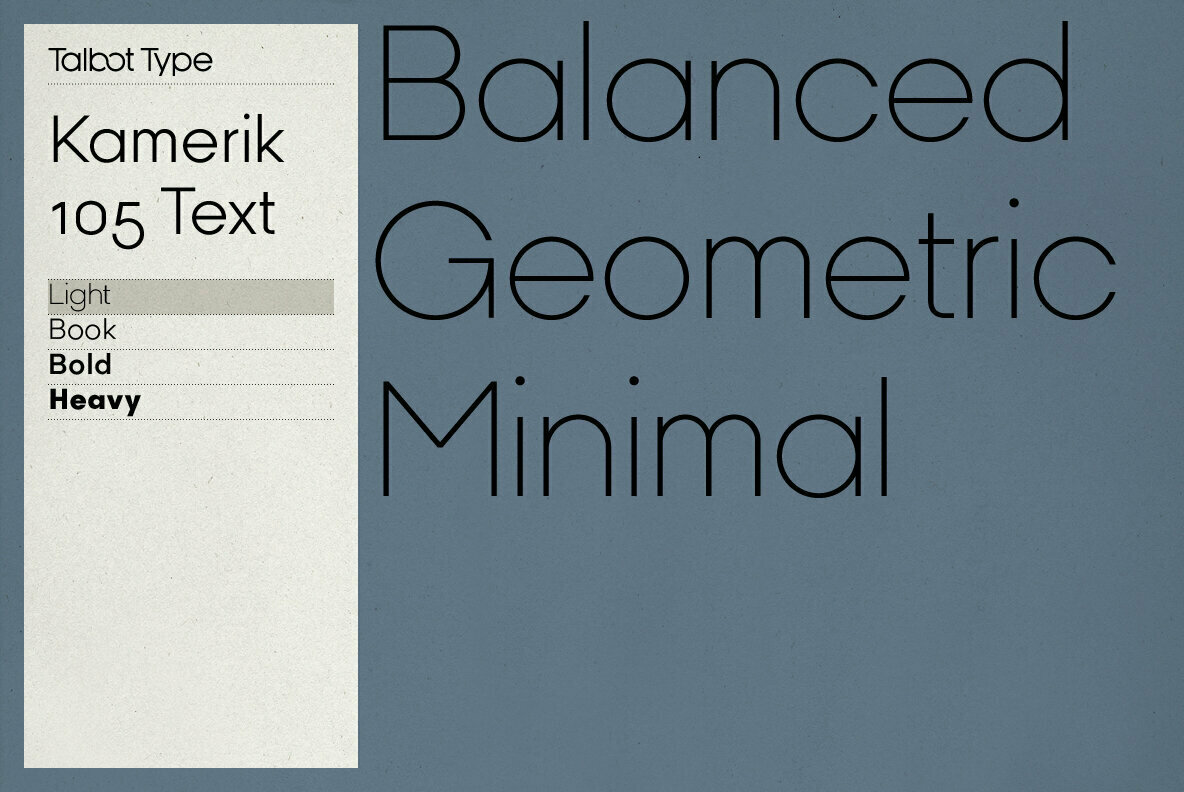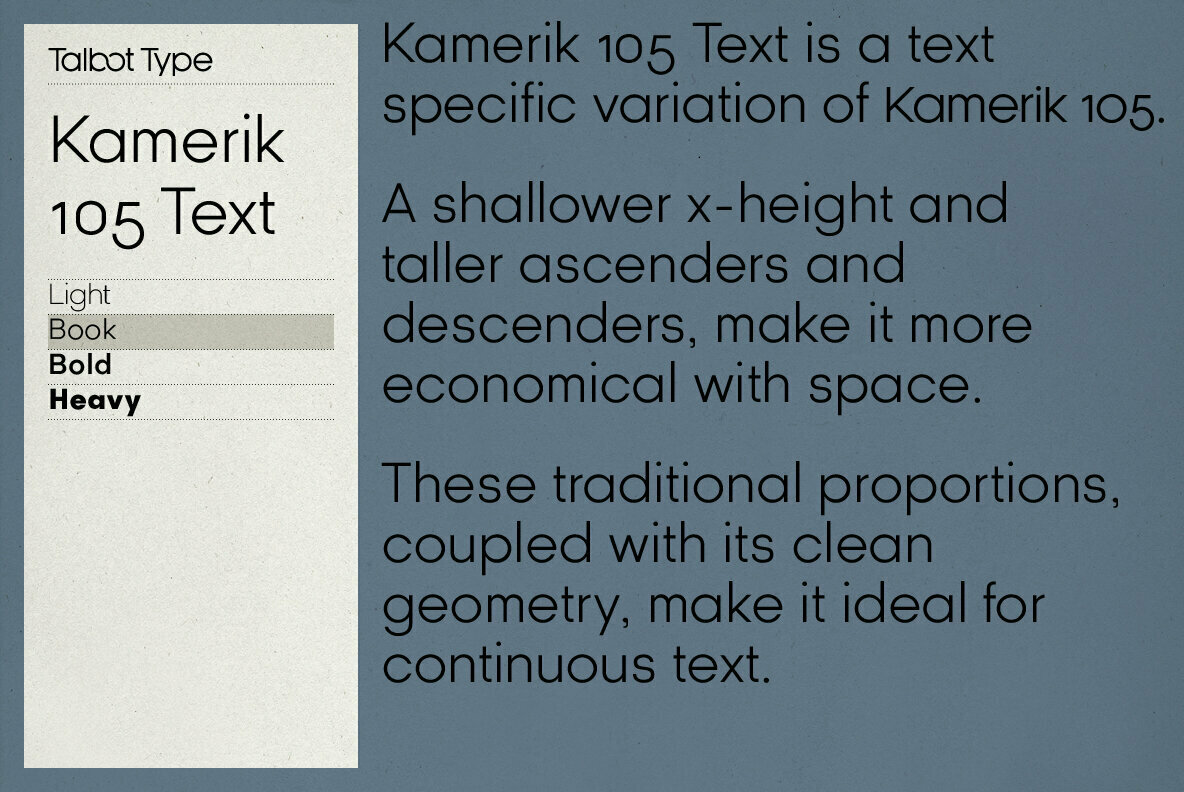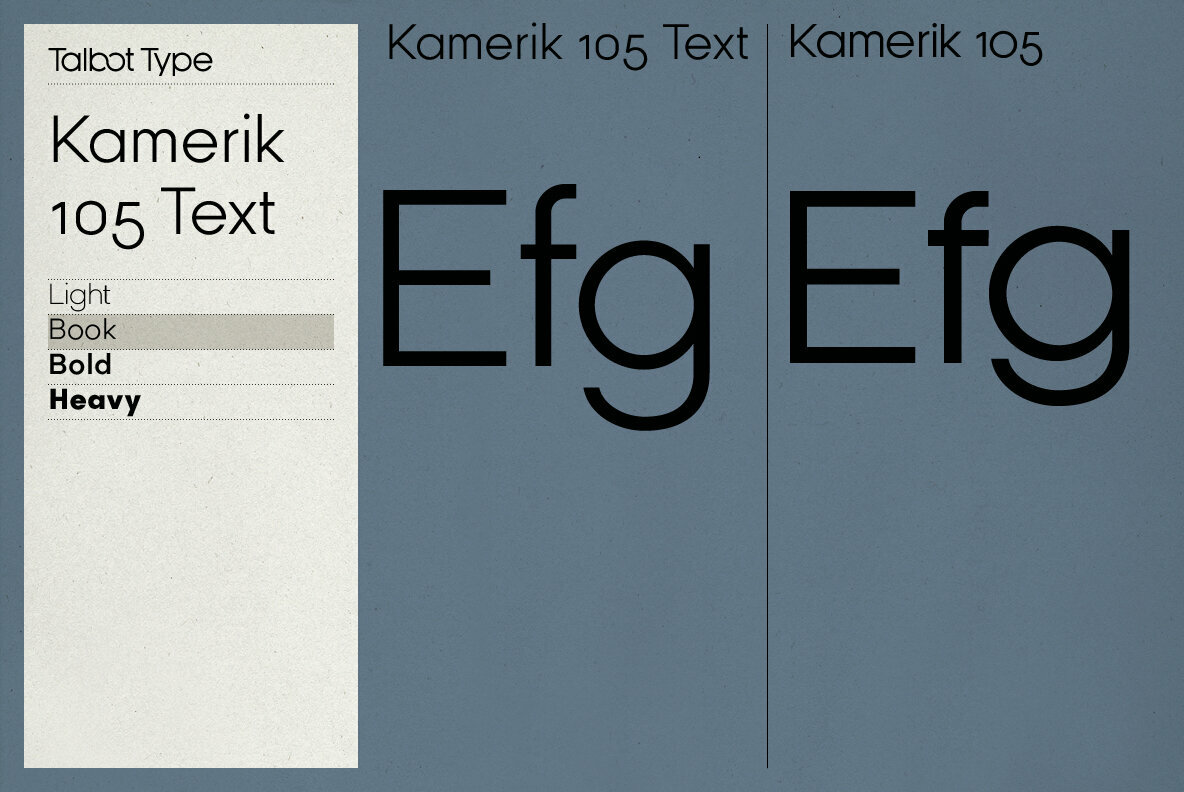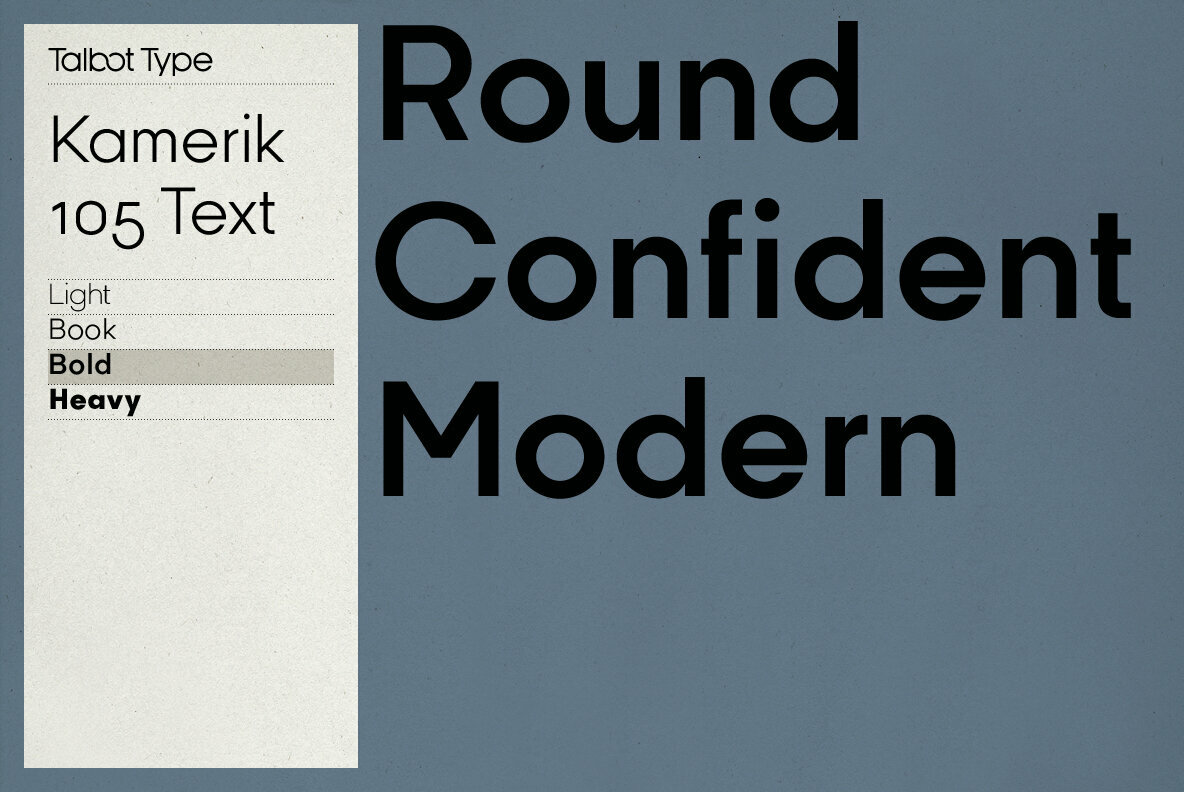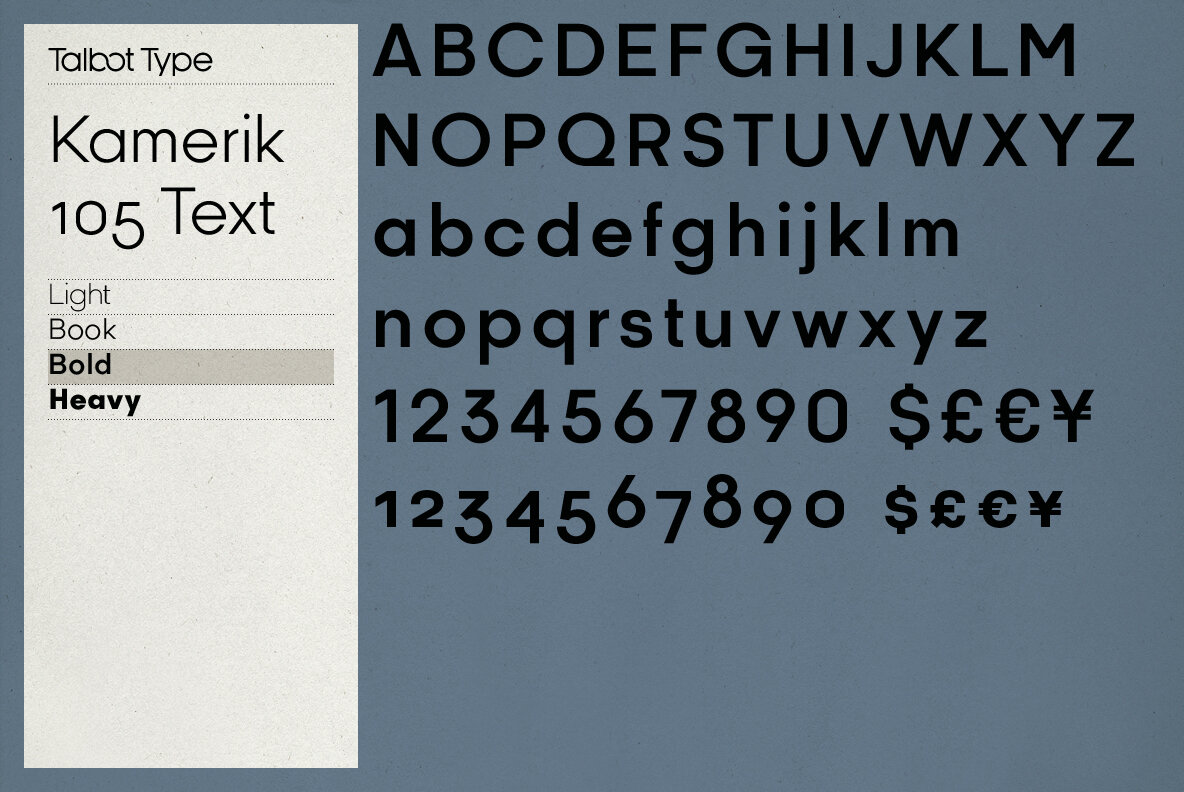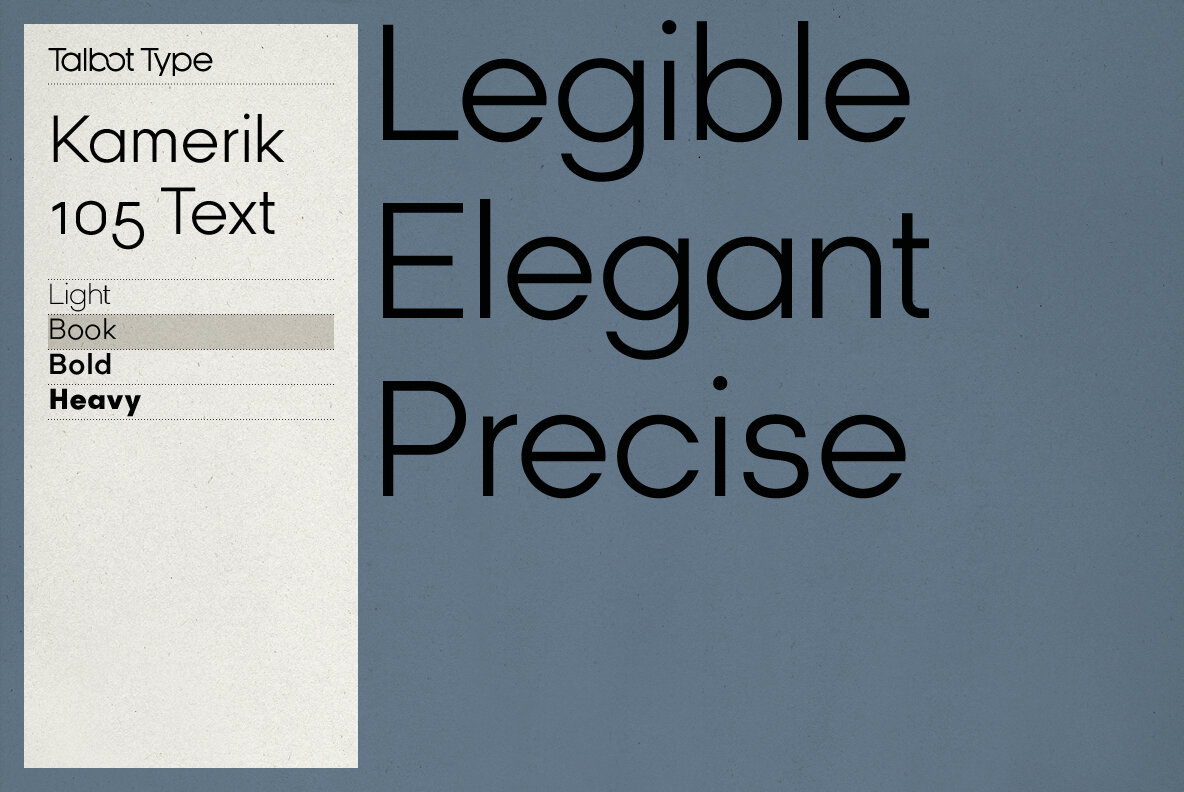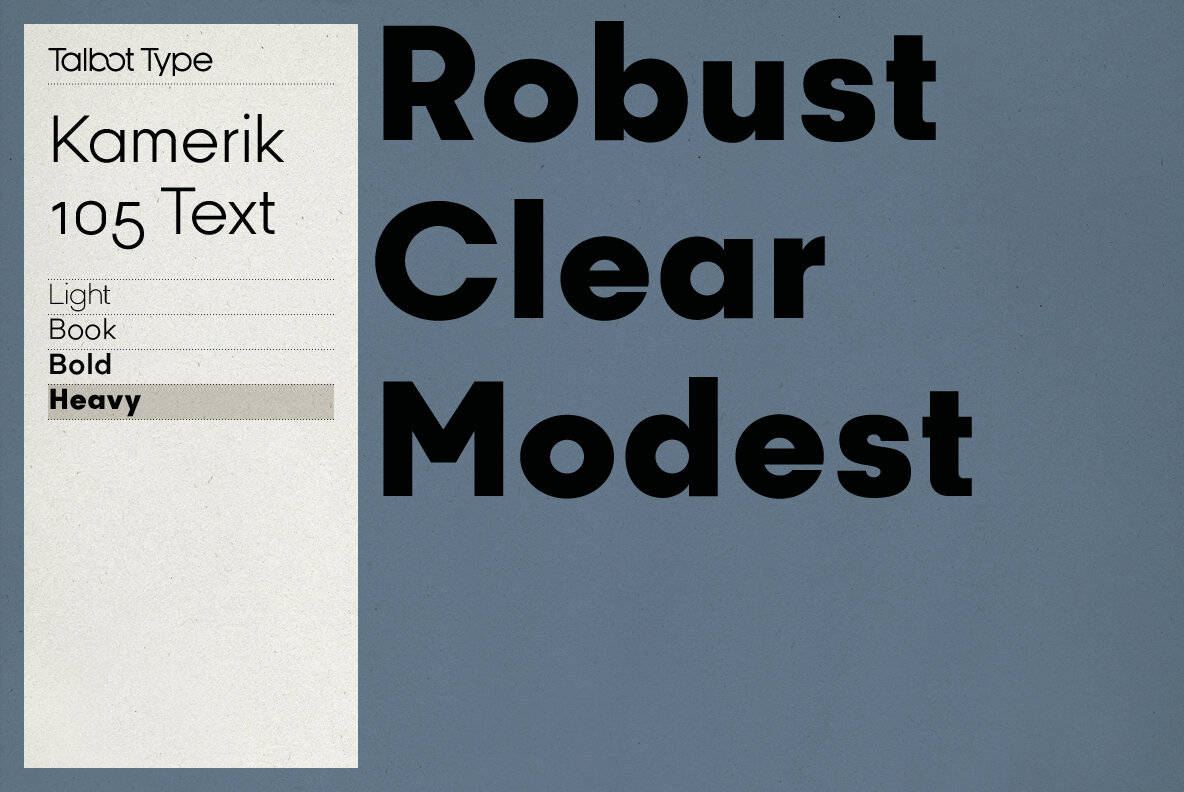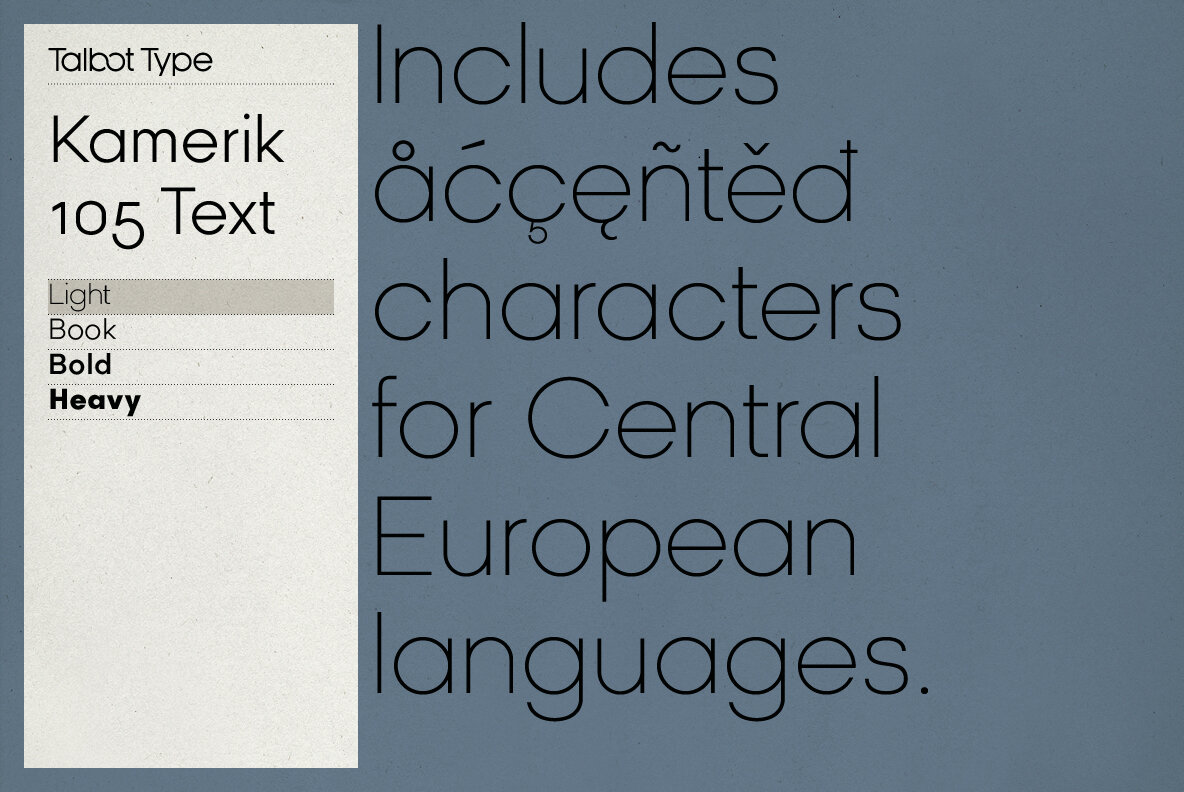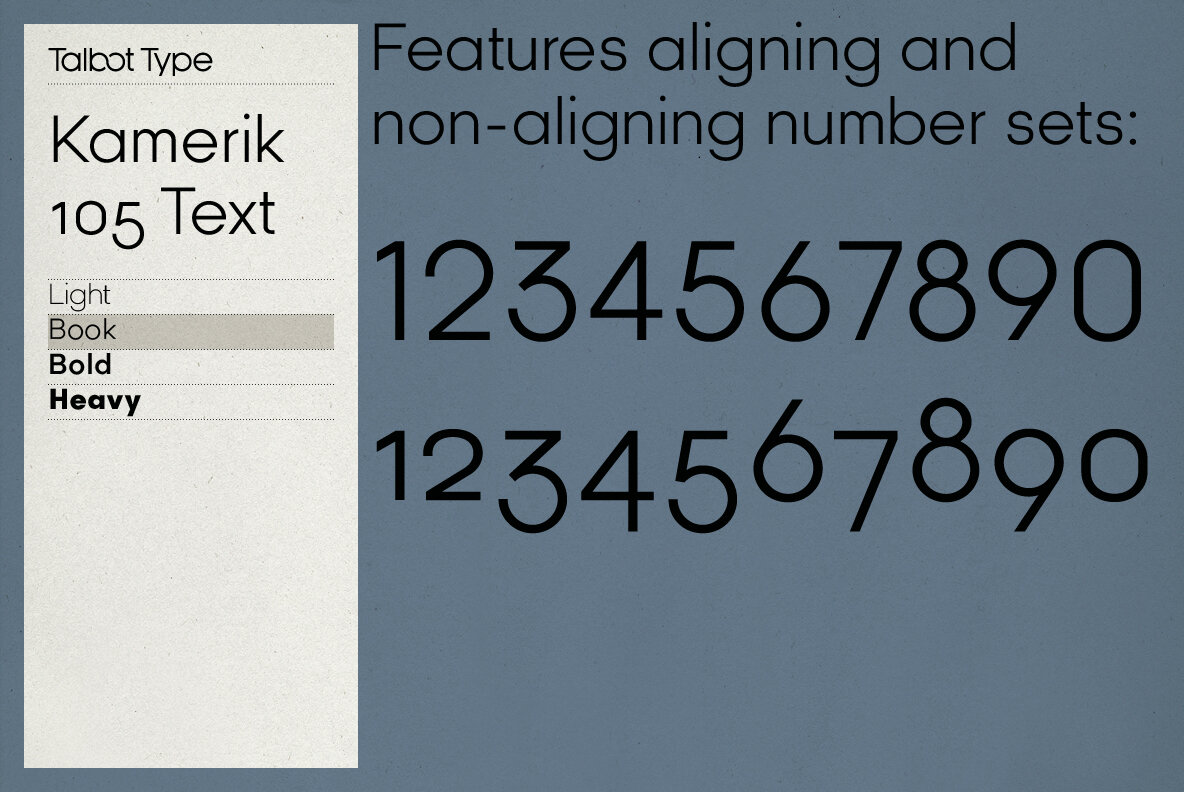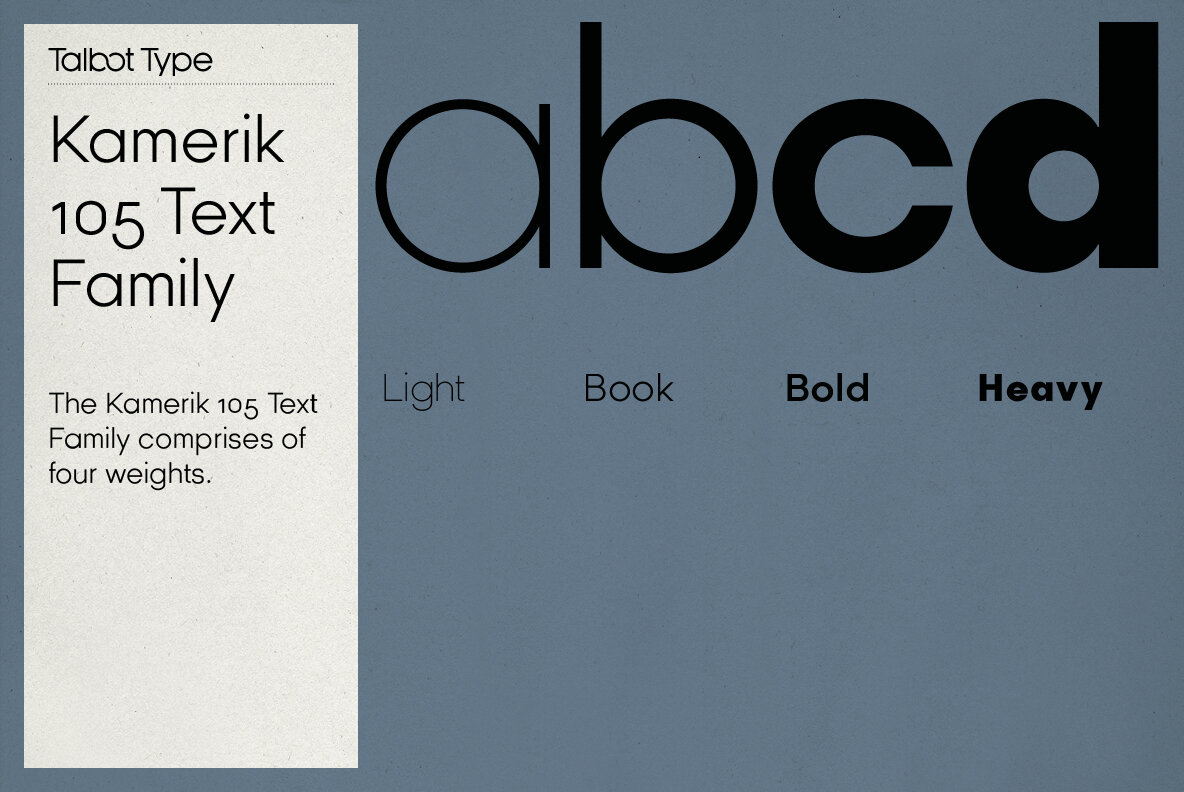
Kamerik 105 Text is the text specific variation of stablemate, Kamerik 105. With a shallower x-height and longer ascenders and descenders, its more traditional proportions make it more economical with space and better suited to continuous text. It's a well-balanced, versatile, modern sans, highly legible as a text font and with a clean, elegant look as a display font at larger sizes.
The Kamerik 105 Text family comprises of four weights and includes old style non-aligning (lower case) numbers, both proportional and tabular as well as accented characters for Central European languages. It is closely related to Kamerik 205 Text, which offers variations in some characters, most notably a two-storey lower case a and g.